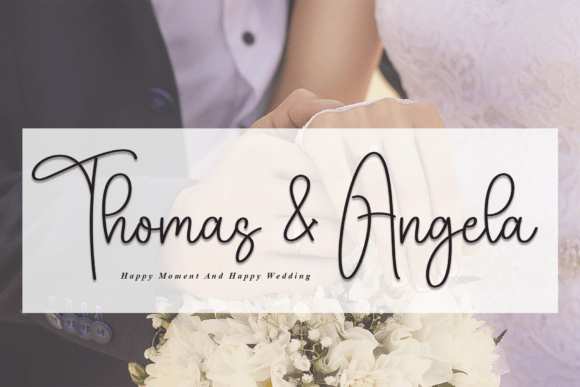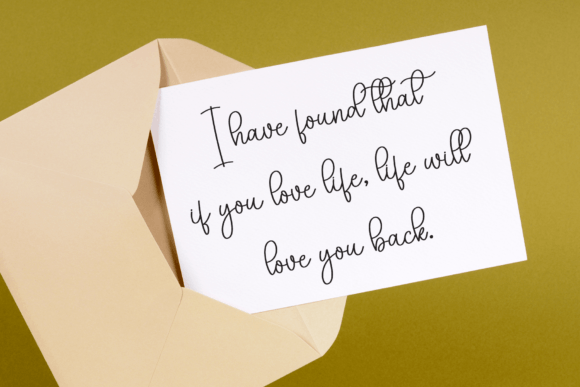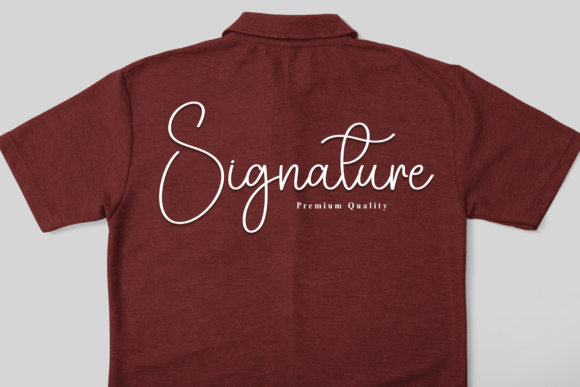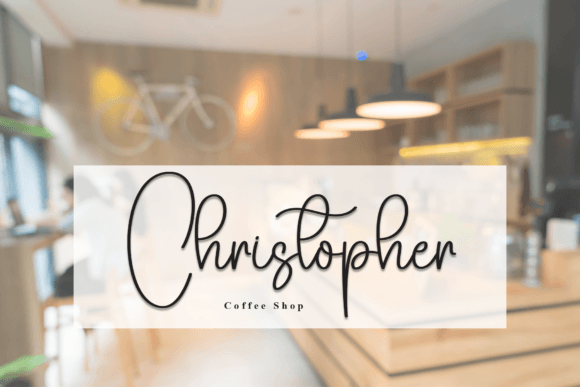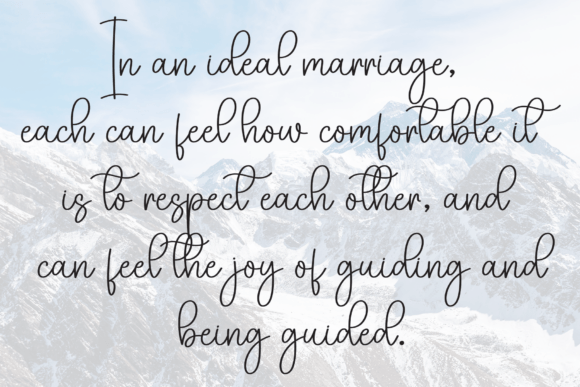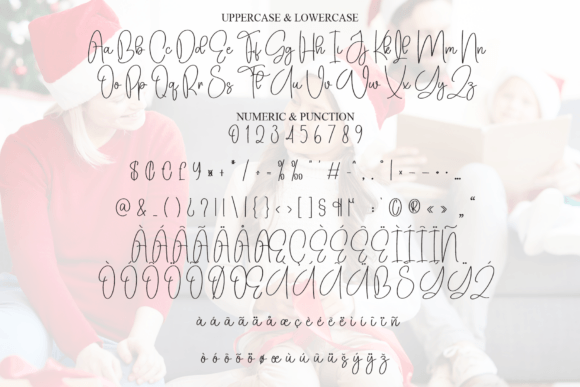
Deck the Halls with Family Christmas Font: A Delightful Script for Holiday Cheer
The holiday season is upon us, and with it comes the joy of creating special moments with loved ones. What better way to make your festive designs stand out than with a beautiful, handwritten font that exudes warmth and elegance? Look no further than Family Christmas, a delightful script font that’s perfect for bringing a personal touch to your holiday creations.
A Festive Font for the Holiday Season
Family Christmas is a script handwritten font that’s been carefully crafted to capture the magic of the holiday season. Its flowing, playful strokes are reminiscent of handwritten holiday cards and evoke a sense of nostalgia and warmth. Whether you’re designing holiday cards, invitations, family portraits, gift tags, or seasonal branding, this font is sure to add a touch of elegance and sophistication to your creations.
Perfect for Festive Designs
- Holiday Cards: Create personalized holiday cards that will make your loved ones feel special. With Family Christmas font, you can add a touch of elegance and warmth to your card designs.
- Invitations: Invite friends and family to join in the holiday fun with beautifully designed invitations that feature the Family Christmas font.
- Family Portraits: Create heartwarming family portraits that capture the spirit of the holiday season. This font is perfect for adding captions or quotes to your designs.
- Gift Tags: Add a personal touch to your gifts with beautifully designed gift tags that feature the Family Christmas font.
- Seasonal Branding: Get into the holiday spirit with seasonal branding that features the Family Christmas font. Perfect for businesses, this font can add a touch of warmth and elegance to your holiday promotions.
Why Choose Family Christmas Font?
- Unique and Personal: Family Christmas font is a unique and personal way to add a touch of elegance to your holiday designs. Its handwritten strokes evoke a sense of warmth and nostalgia.
- Elegant and Sophisticated: This font is perfect for adding a touch of elegance and sophistication to your holiday designs. Its flowing strokes are perfect for creating beautiful, eye-catching designs.
- Versatile: Family Christmas font is versatile and can be used for a wide range of holiday designs, from cards and invitations to gift tags and seasonal branding.
Tips for Using Family Christmas Font
- Keep it Simple: Don’t be afraid to keep it simple. Family Christmas font is perfect for adding a touch of elegance to simple designs.
- Experiment with Colors: Experiment with different colors to find the perfect combination for your holiday designs.
- Pair with Other Fonts: Don’t be afraid to pair Family Christmas font with other fonts to create a unique and eye-catching design.